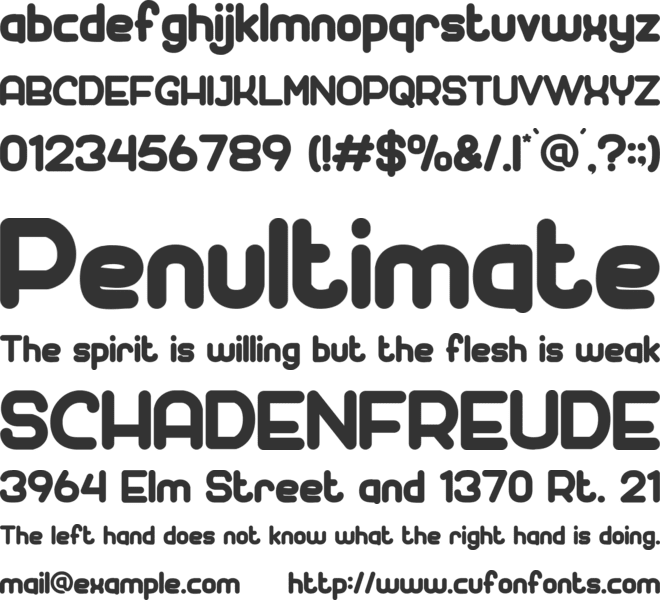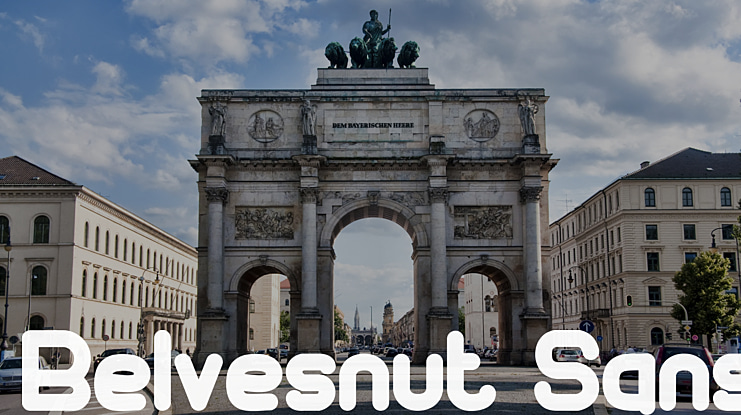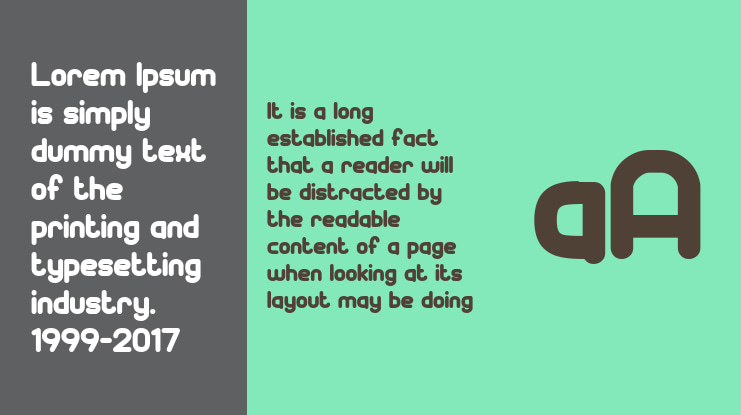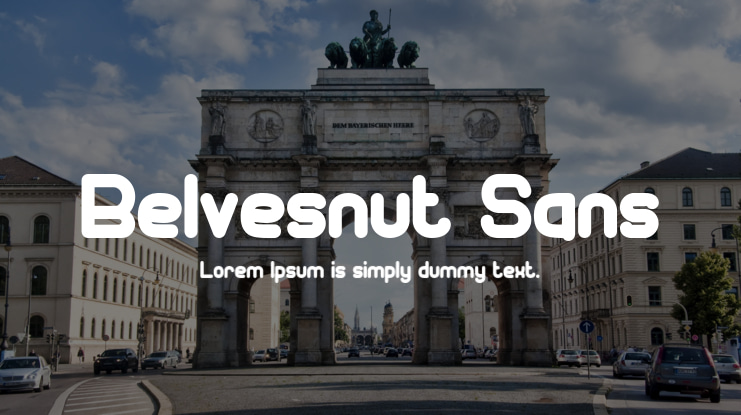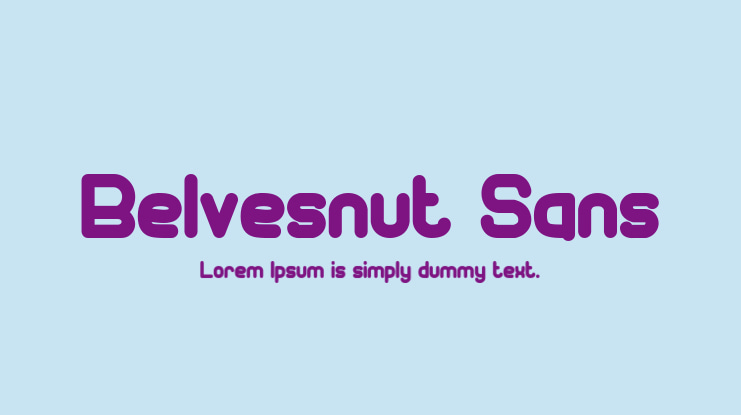
Belvesnut Sans is a round and simple sans font with taily alternate. This font is PUA encoded which means you can access all of the amazing glyphs with ease! Use this font for all your designs need and explore its endless possibilities.